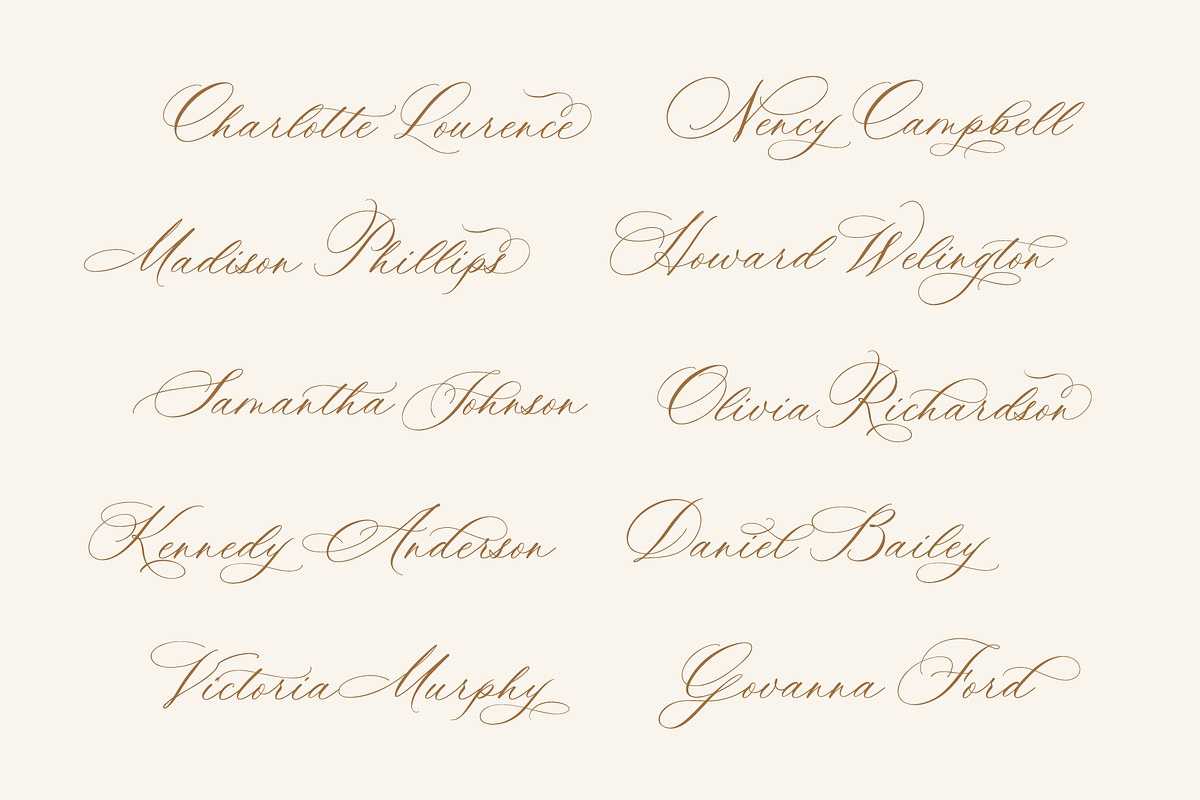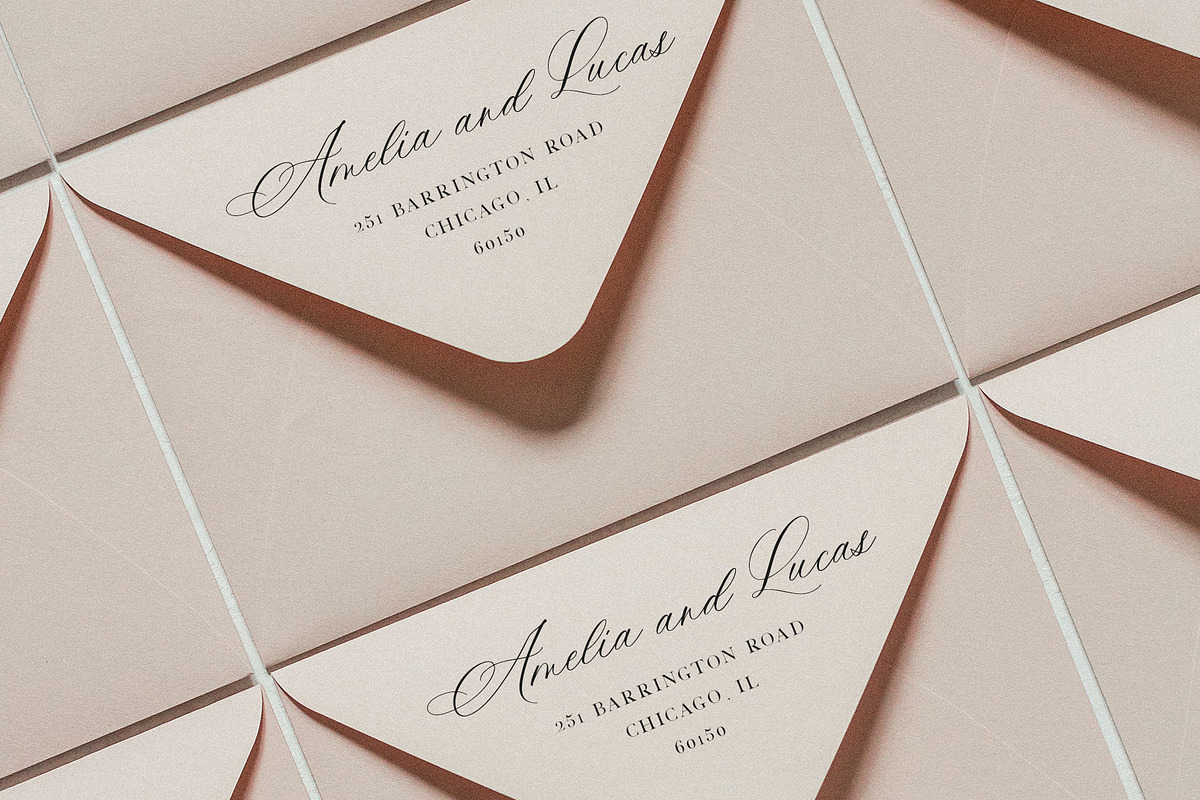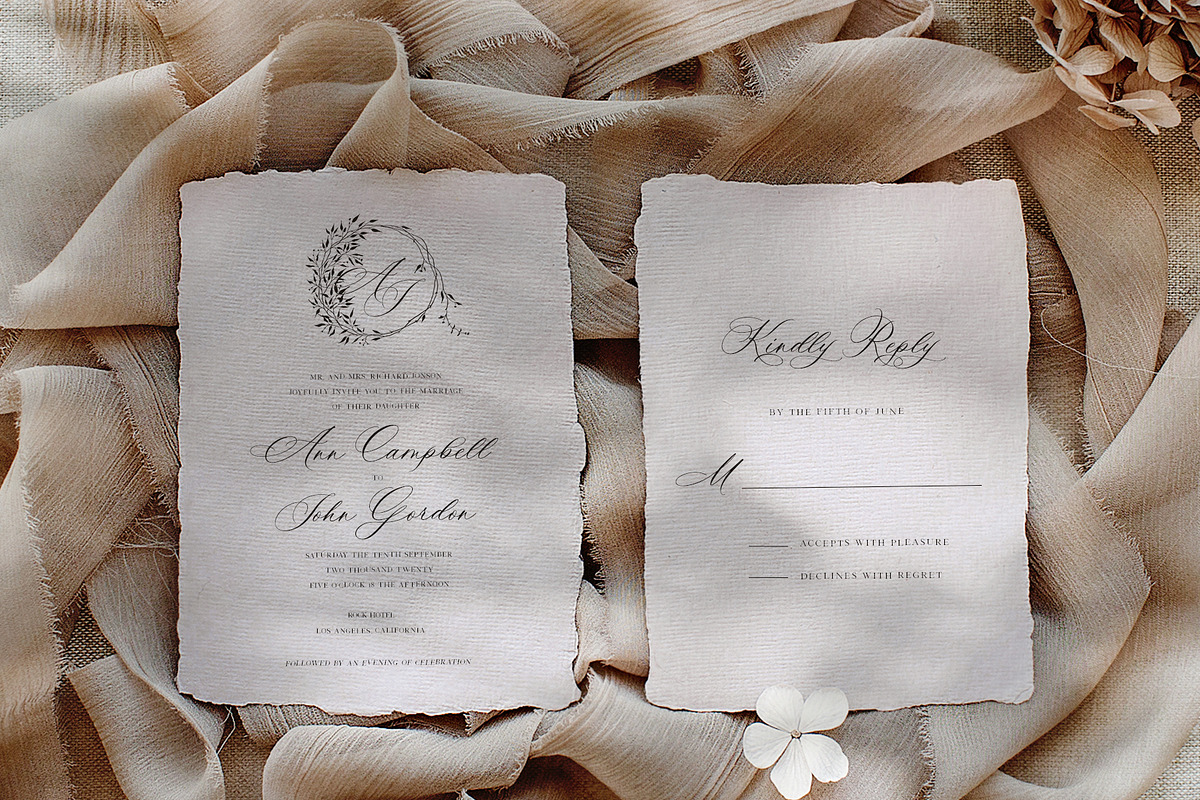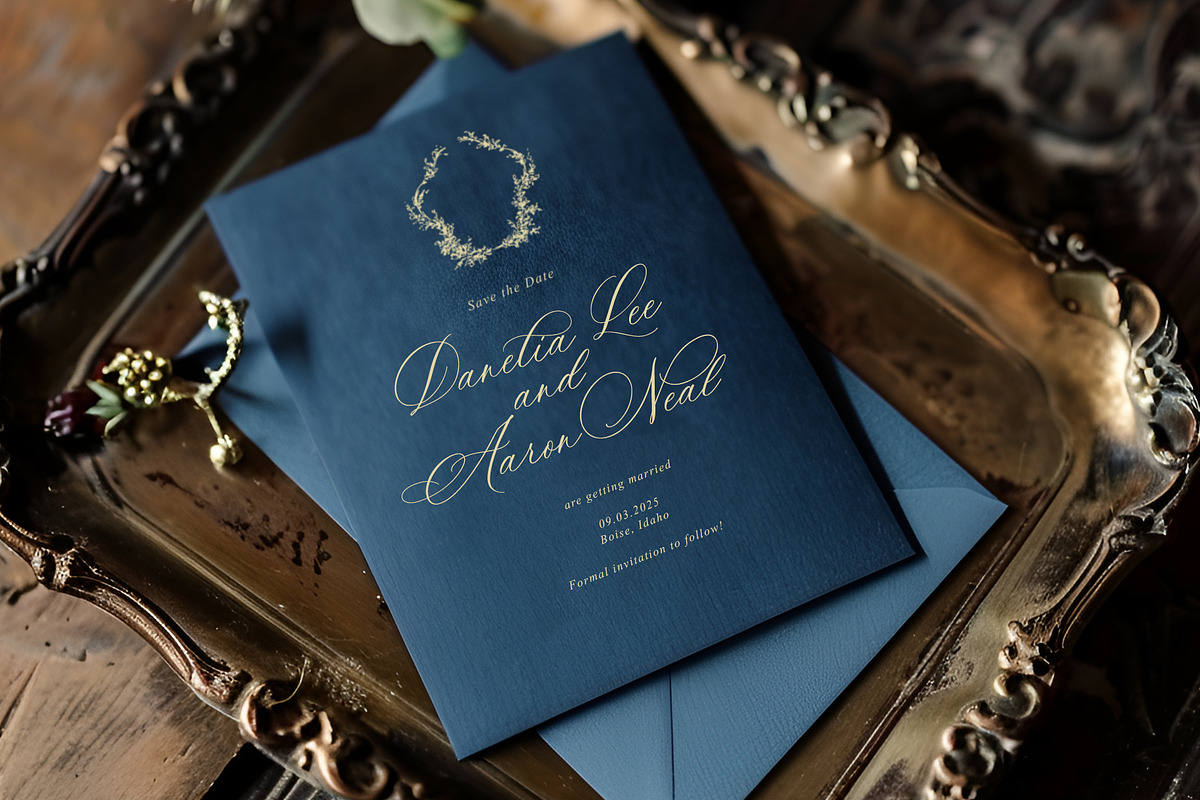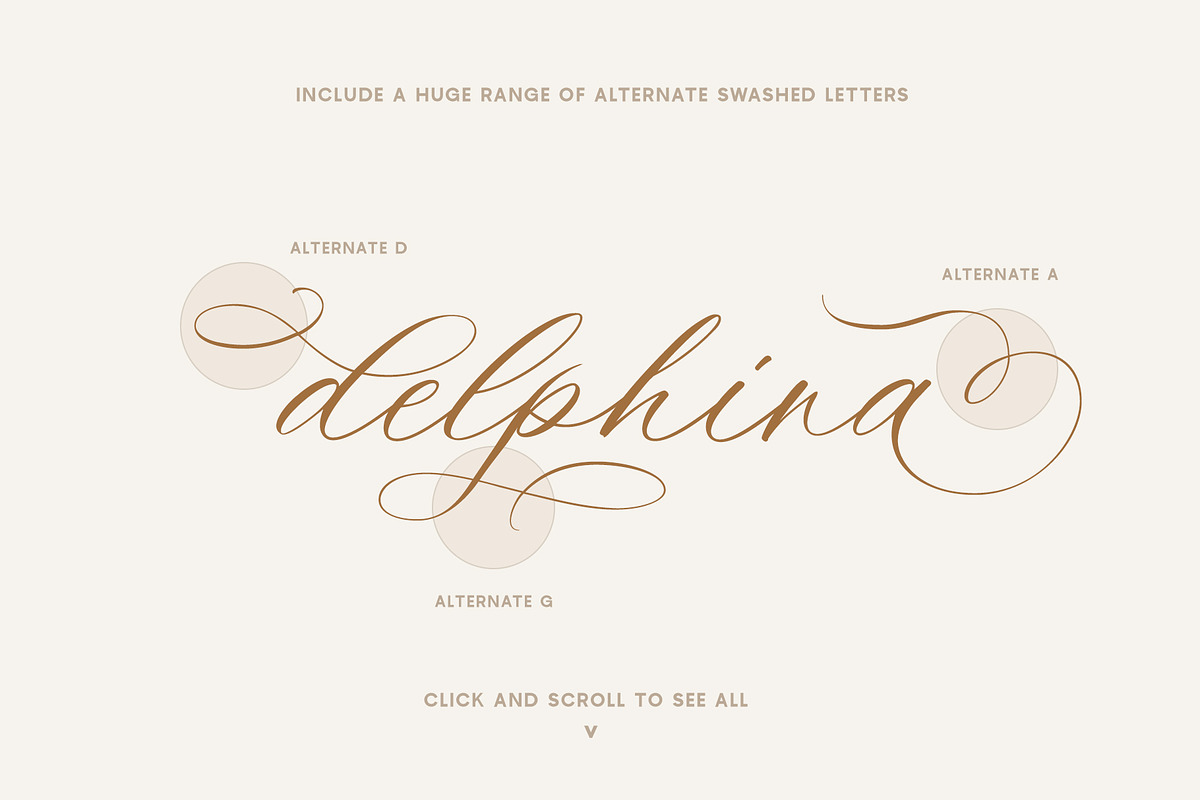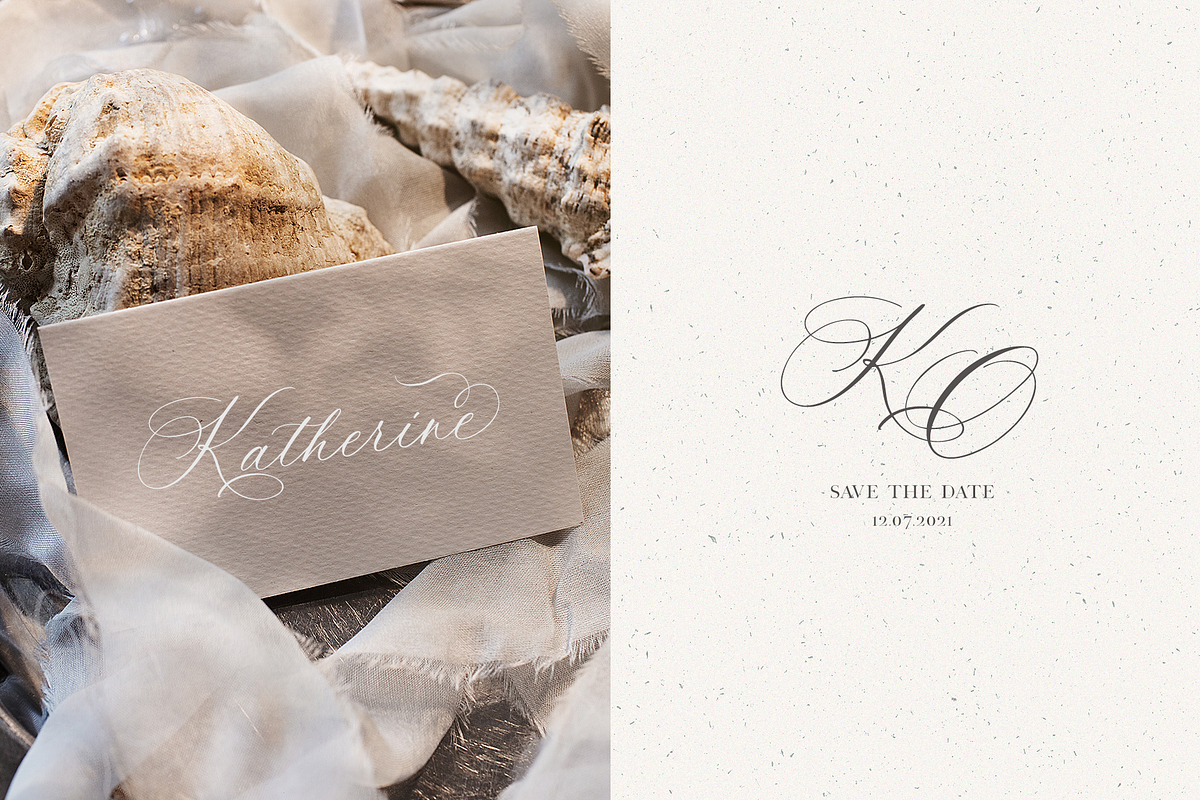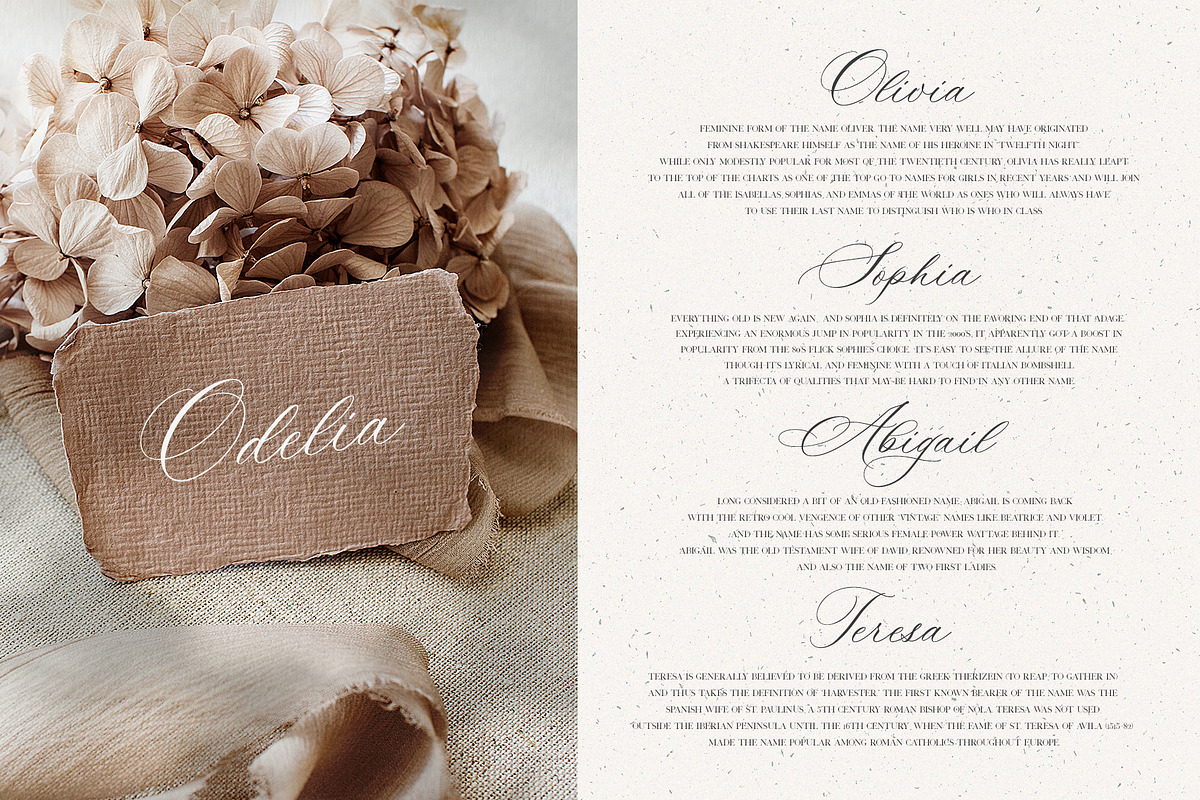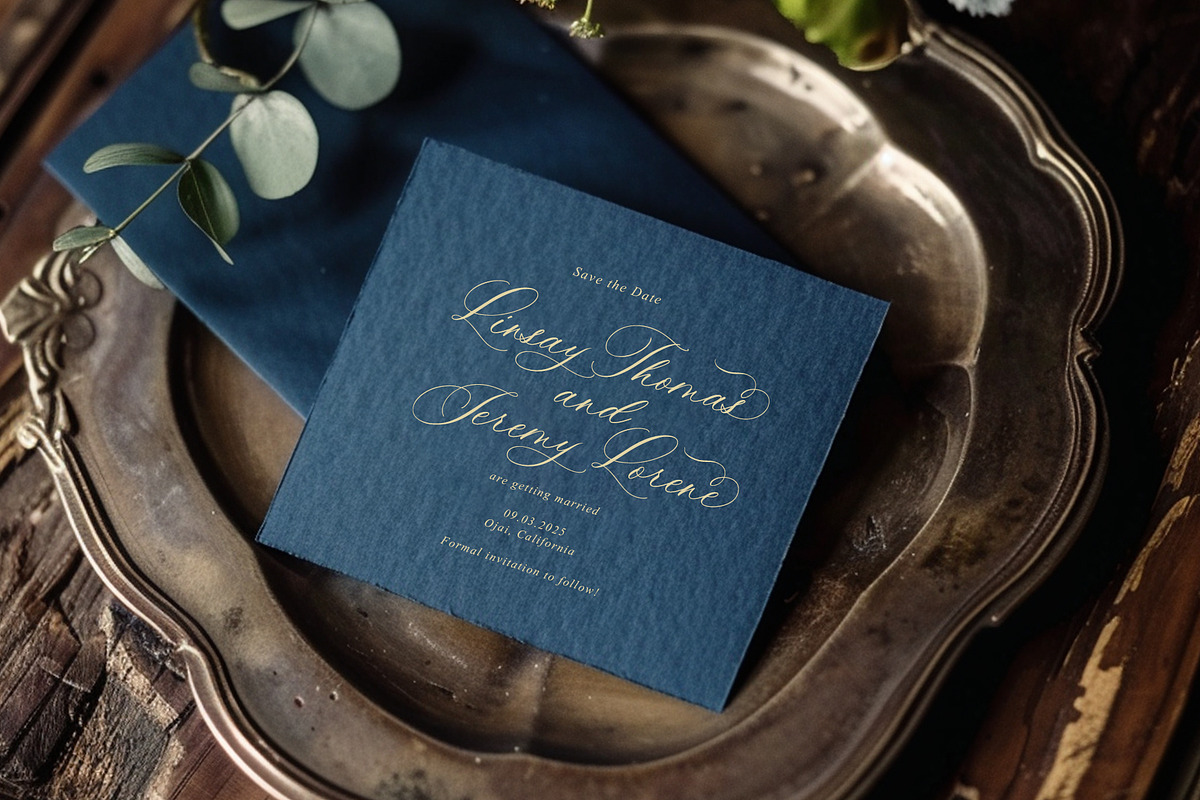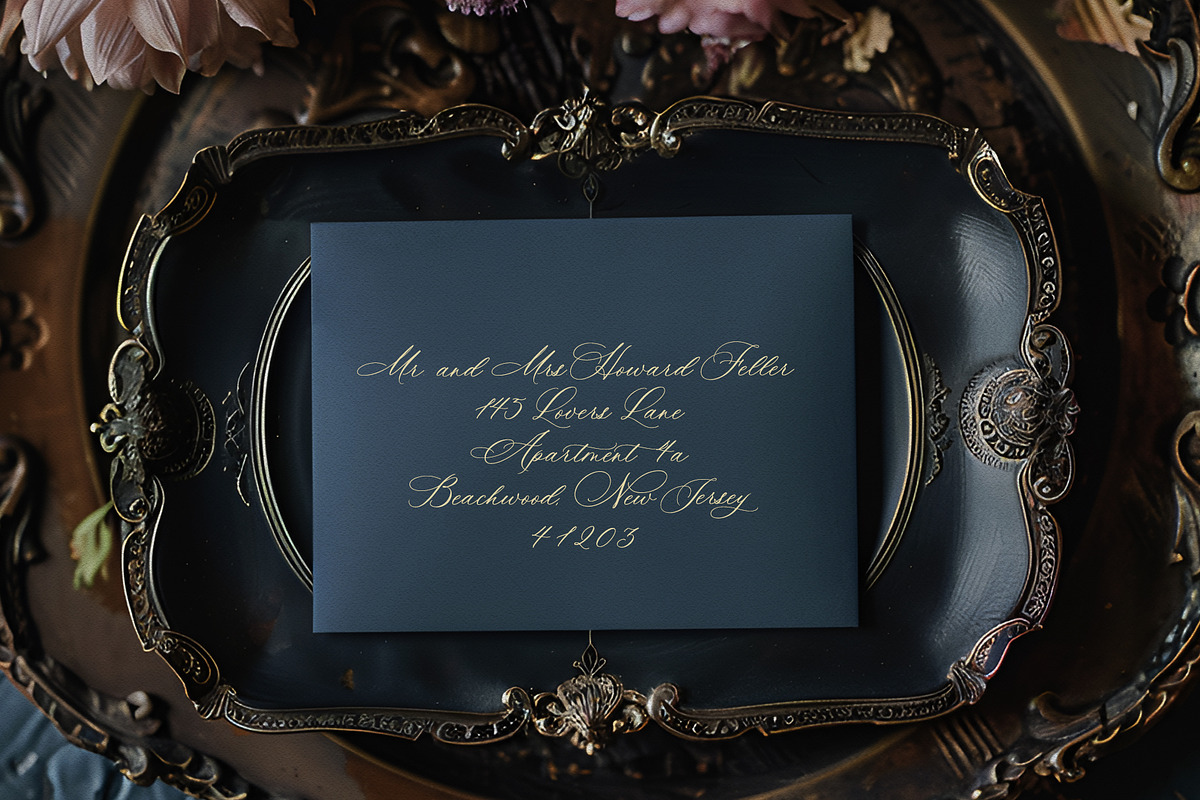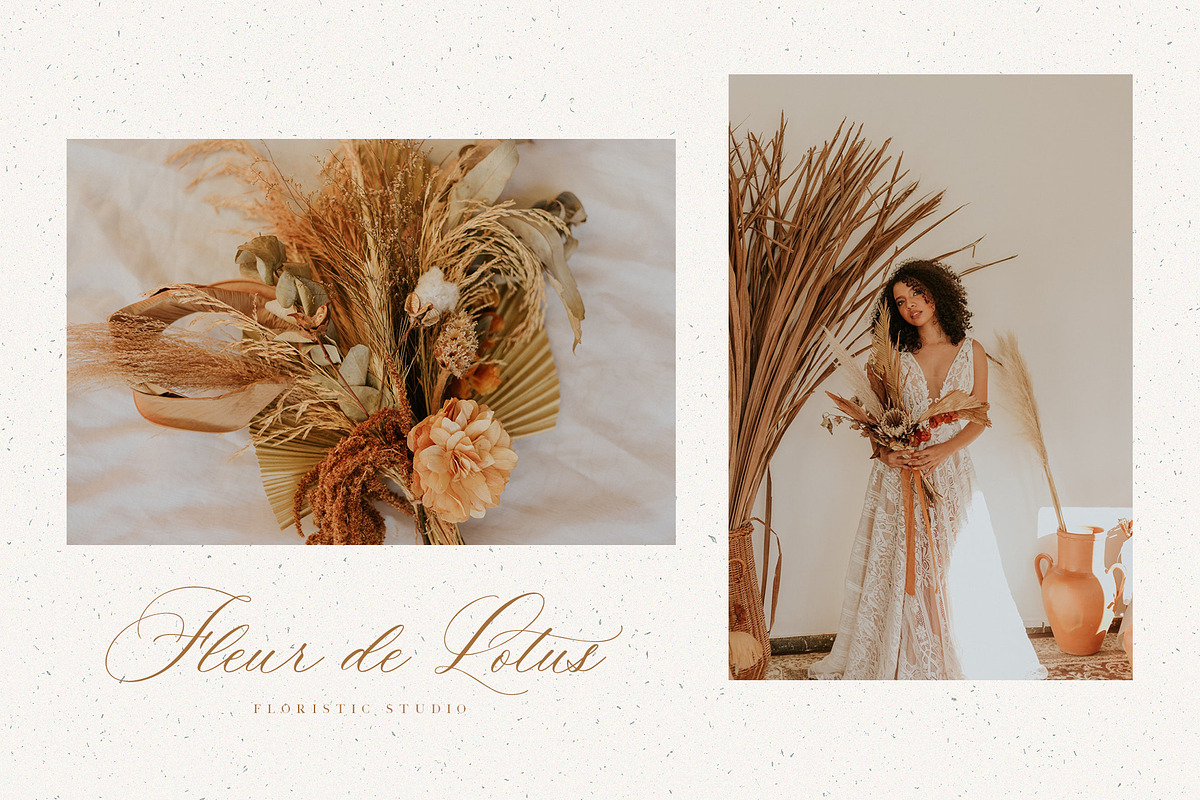
Ms Claudy | Wedding Calligraphy Font
Meet the new modern calligraphy font - Ms. Claudy. This beautiful script is for those who are needing of elegance and stylish for their designs and particularly well suited for wedding invitations, save the date cards and feminine branding.
Ms Claudy includes full set of Uppercase and Lowercase Basic Characters, Numerals and Punctuation. Also it contains ligatures and a lot of stylistic alternates to perfectly re-create natural calligraphy (check the previews in order to see them all).